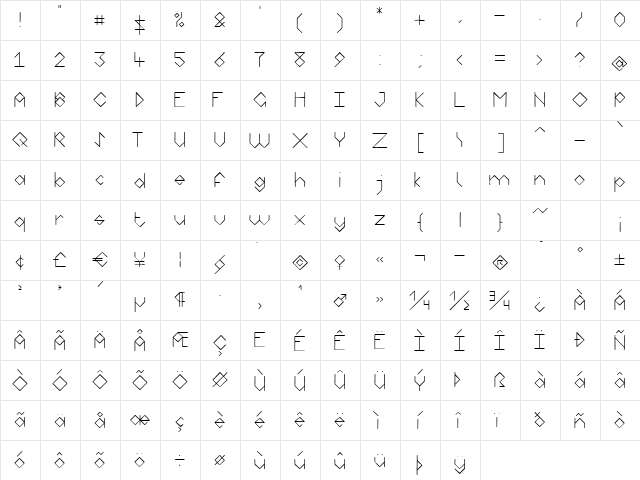
Pantheon Regular
Design Context for Pantheon Typeface
Pantheon offers clean, dependable letterforms without strong stylistic allegiance, making it a practical choice for designers who need flexibility.